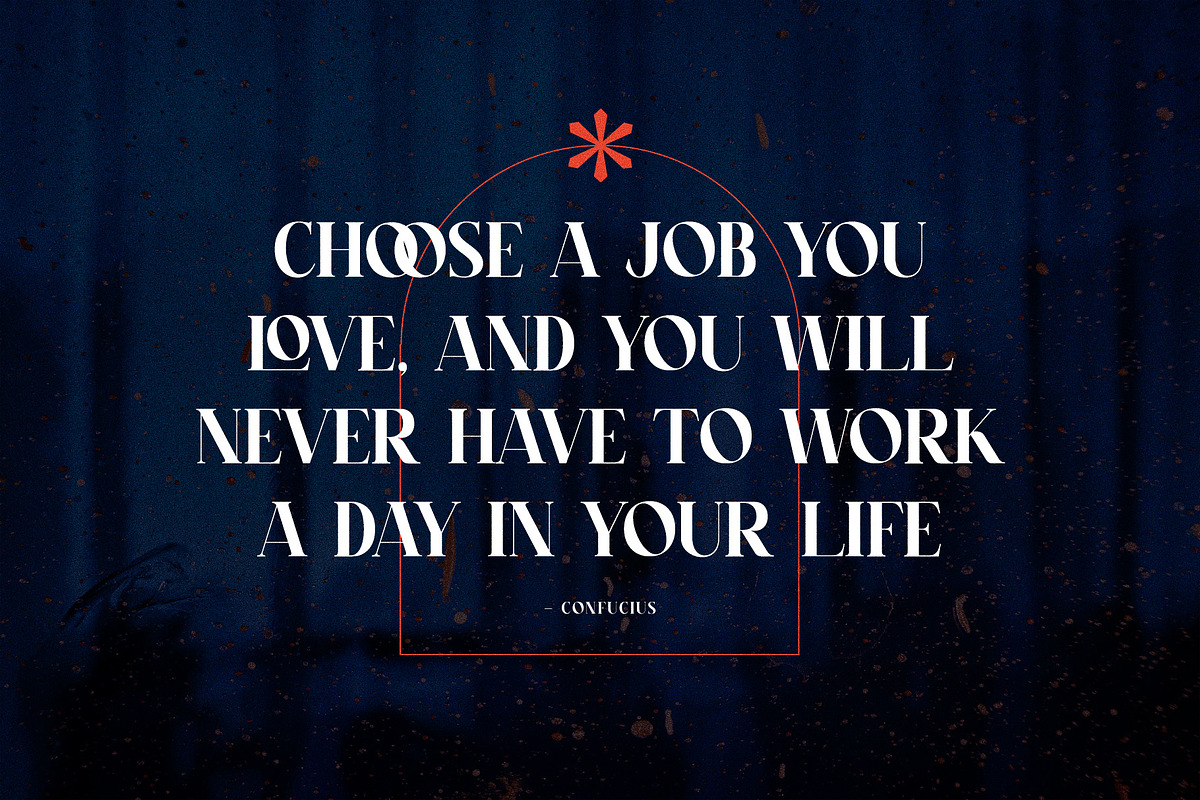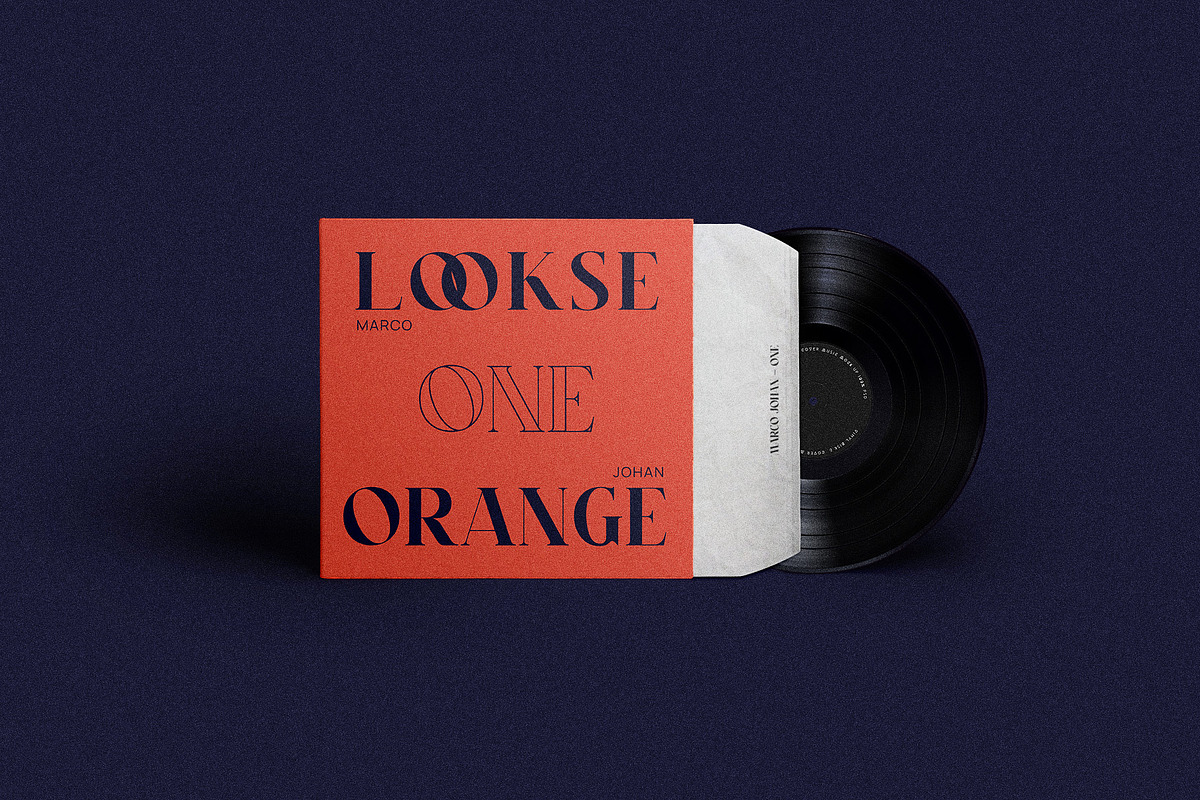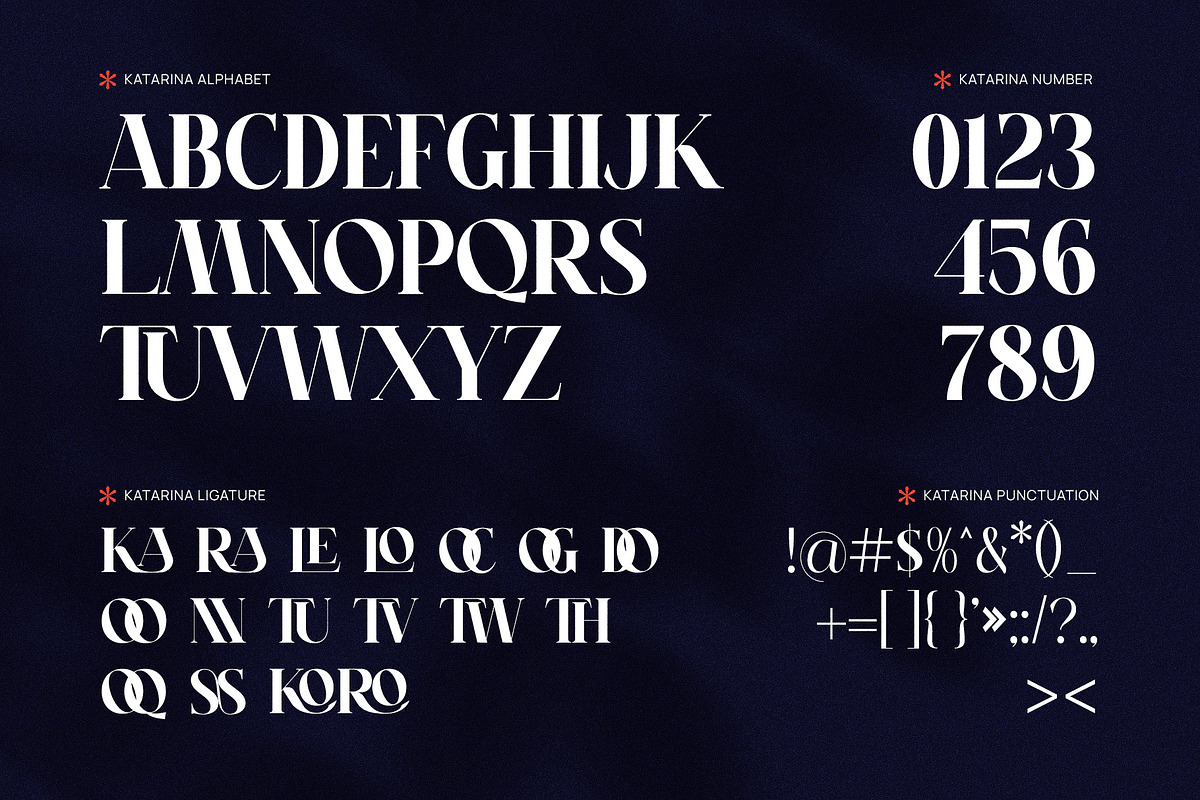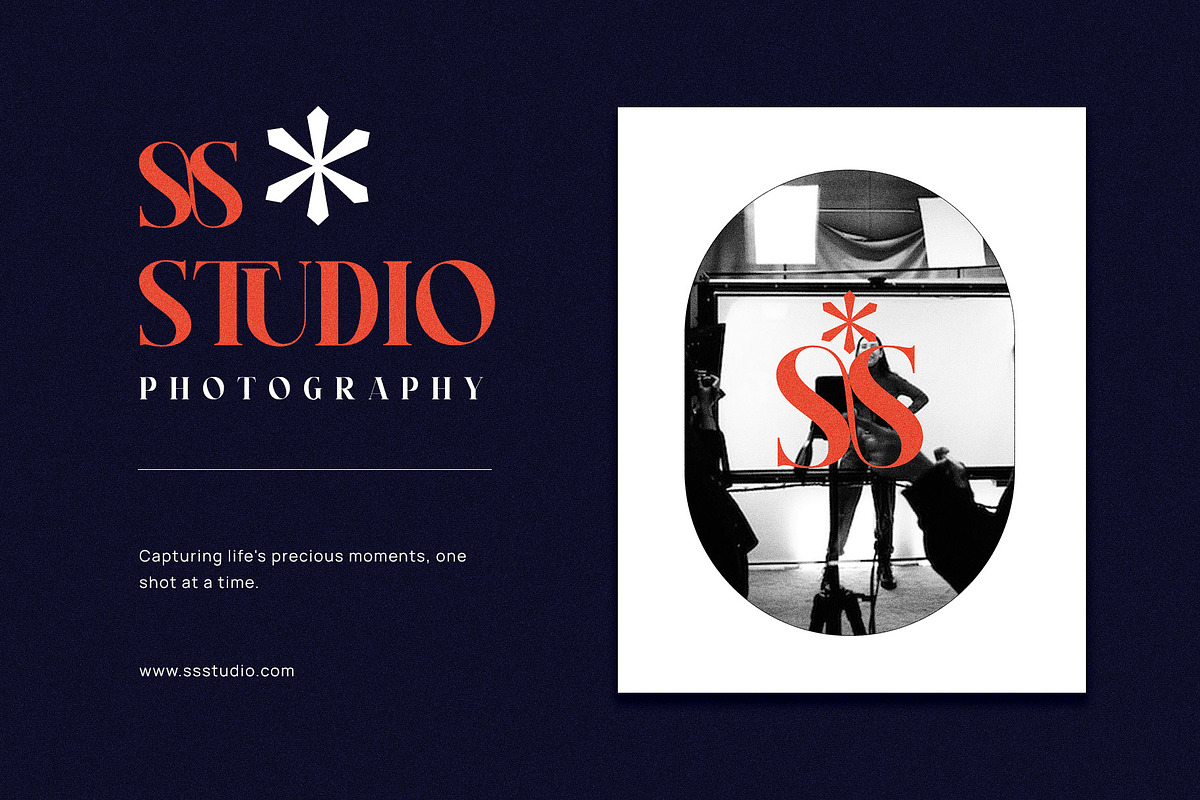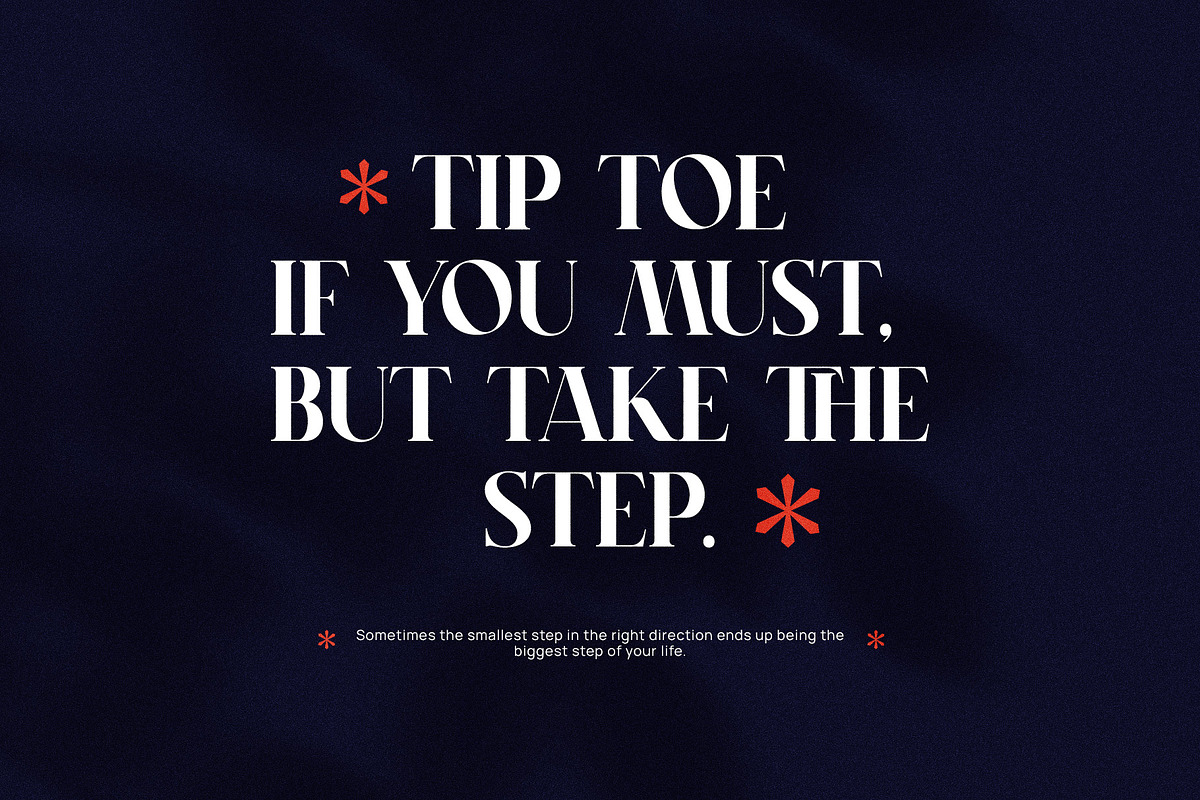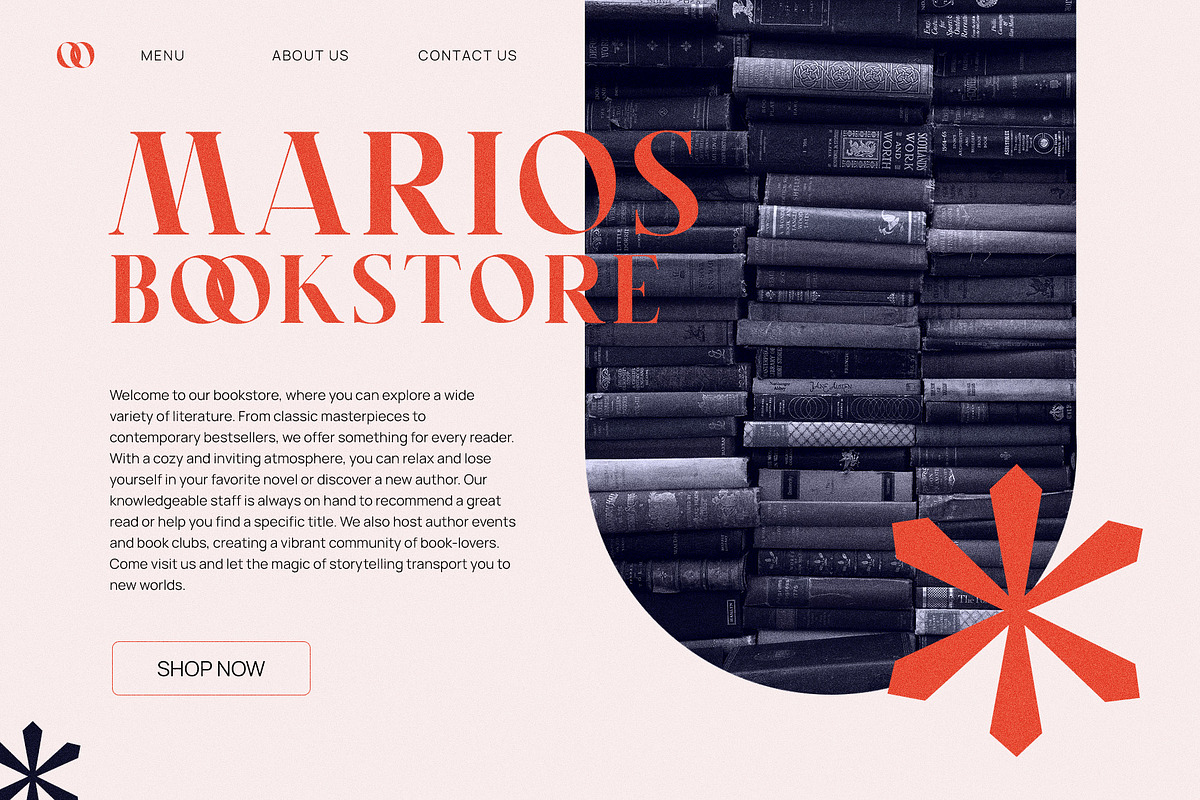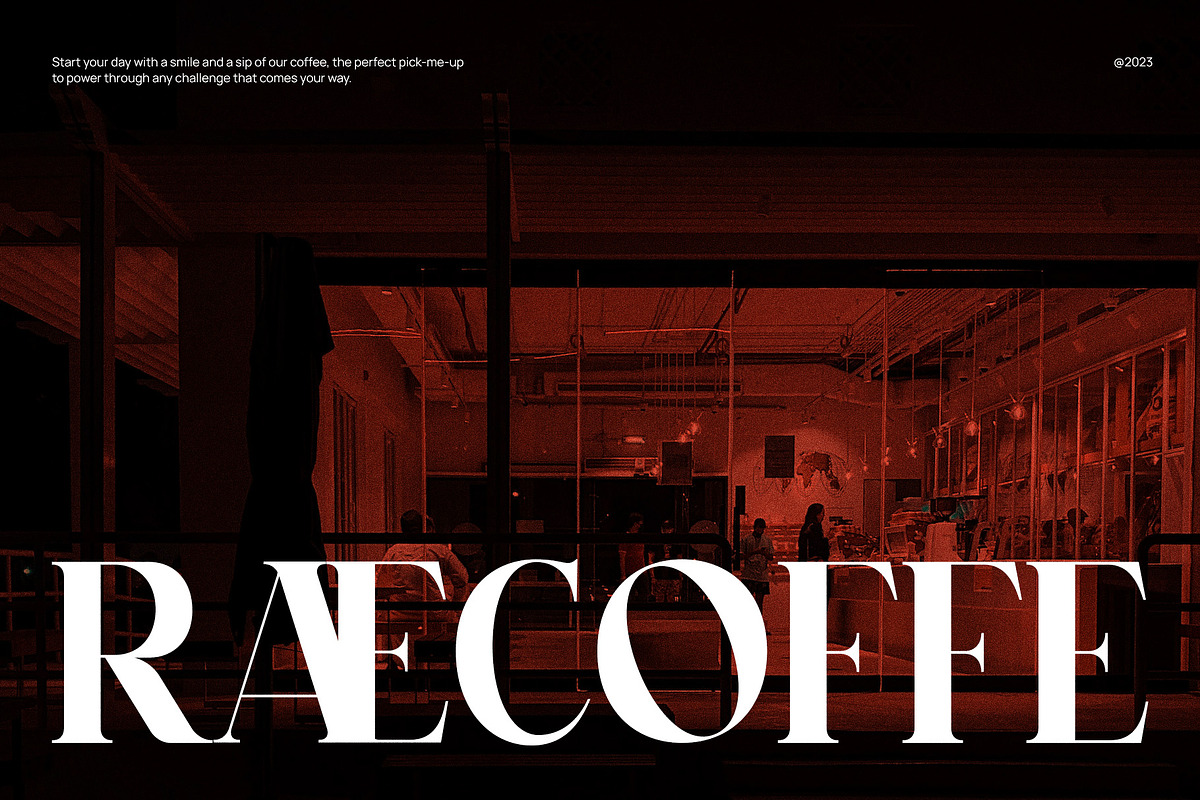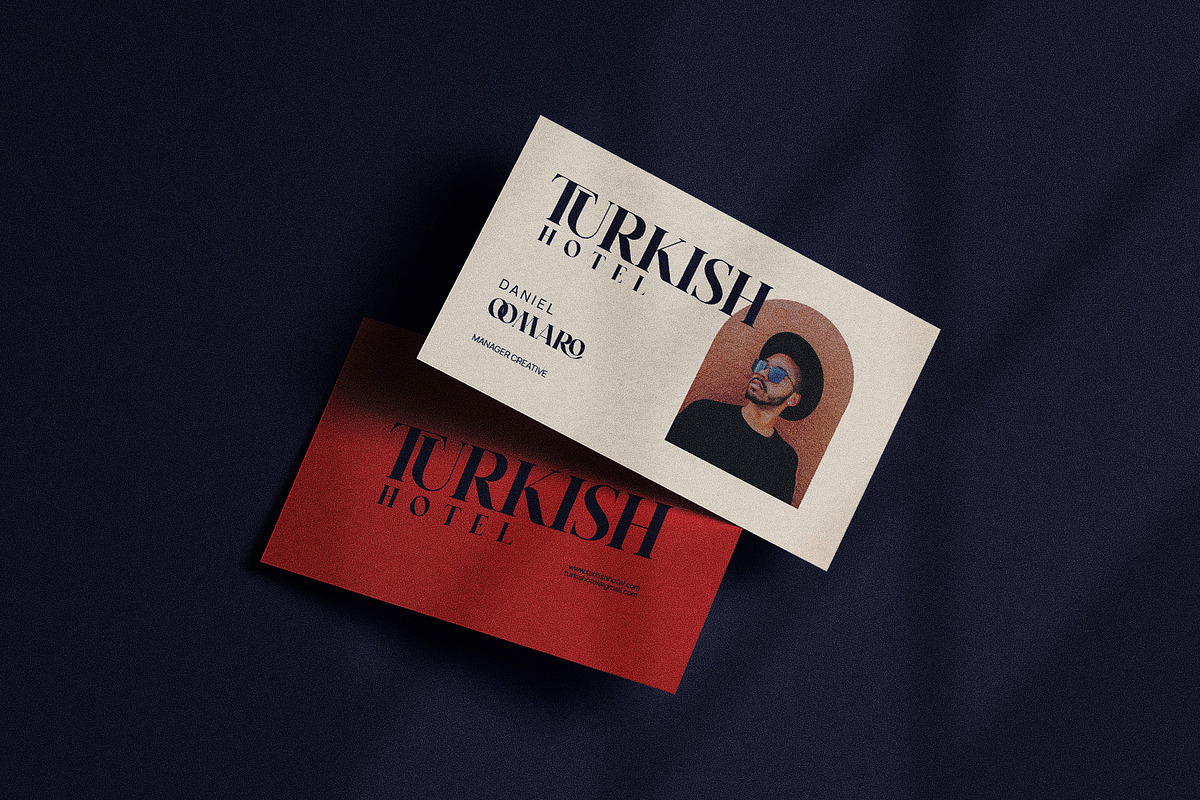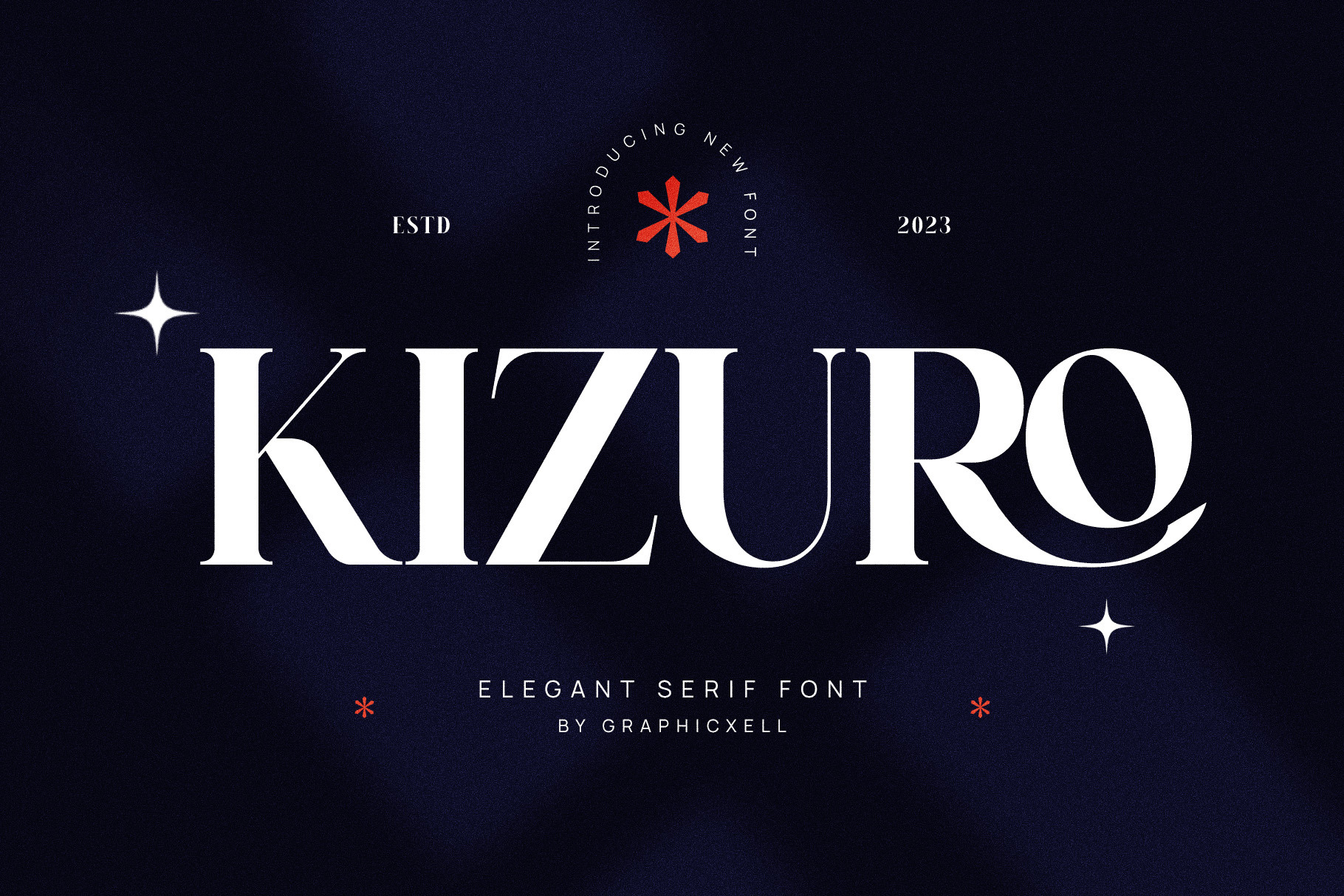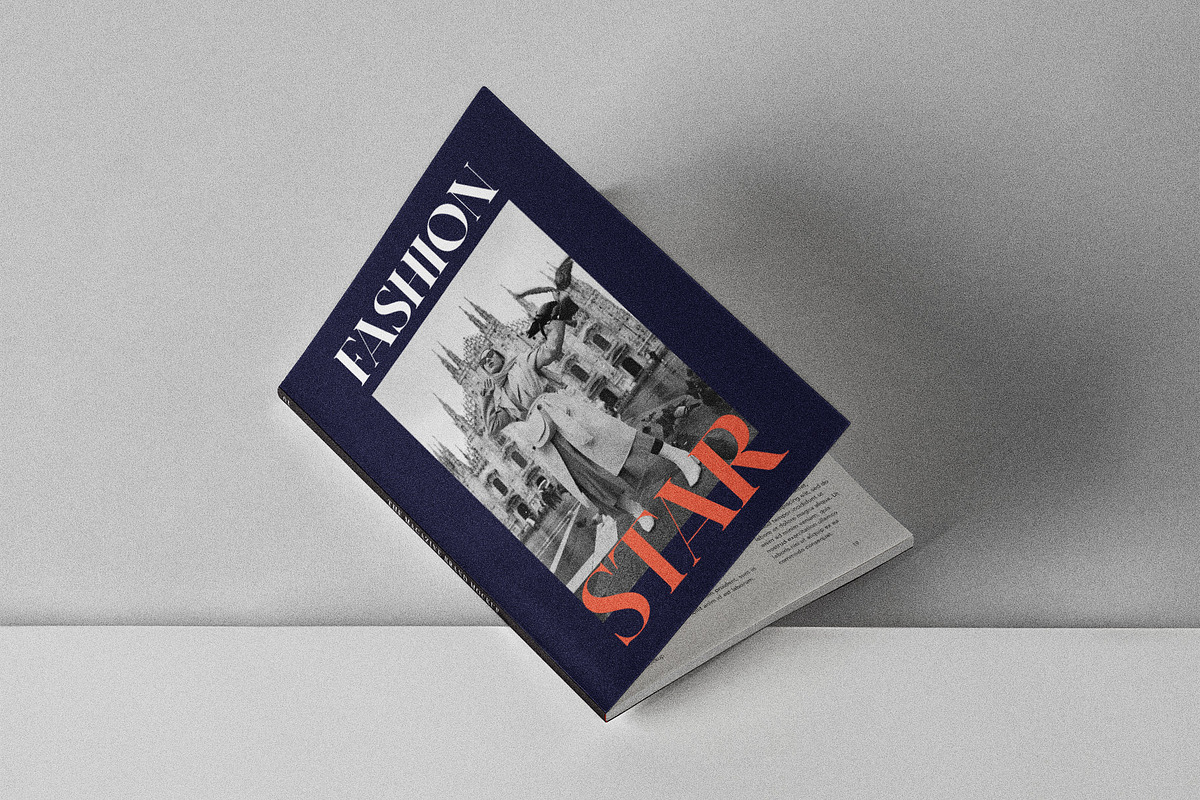
Kizuro Elegant Serif Font
Kizuro Elegant Serif Font is a new type of serif font that comes with a high artistic level. So, it has a casual style and an elegant look. Besides that, this font features variations of the letter height, creating a friendly impression. That’s why it is better for an informal type of design. The counter strokes belong to one of the main appeals where the serifs come with more variative forms and shapes. Moreover, you can see the variation of ligature that adds its charm. However, its irregular shape doesn’t make it difficult to understand. With an exceptional appearance, Bolin Driske could be a must-have font for every digital designer. In fact, this serif font matches various purposes. Because it can attract big attention, this font is best for comics, magazines, product designs, etc. Anyway, this serif font will give a great impact to your design.